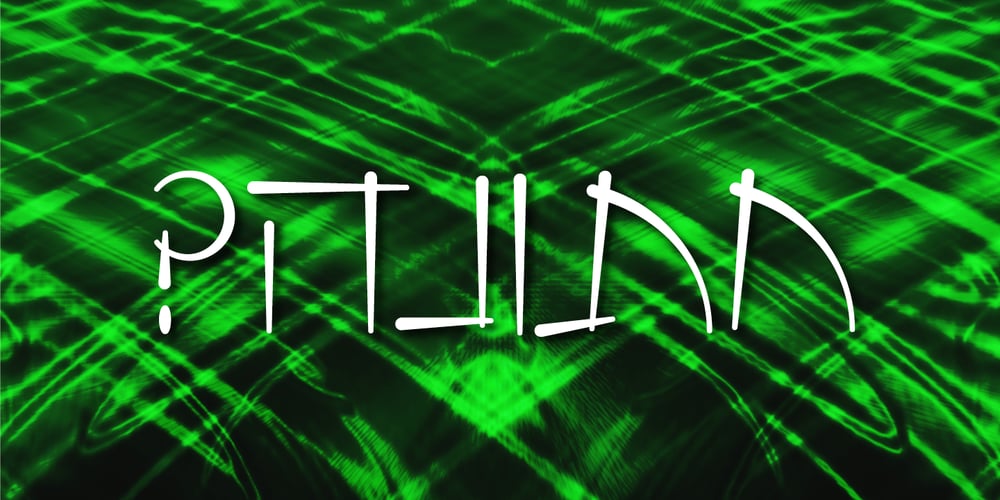
Akvarel MF
Akvarel MF font
Akvarel MF Font Family was designed by Omer Peleg and published by Masterfont. Akvarel MF contains 2 styles and family package options. Fine strokes make this elegant font family a great companion for invitations and signs, indoor and outdoor.